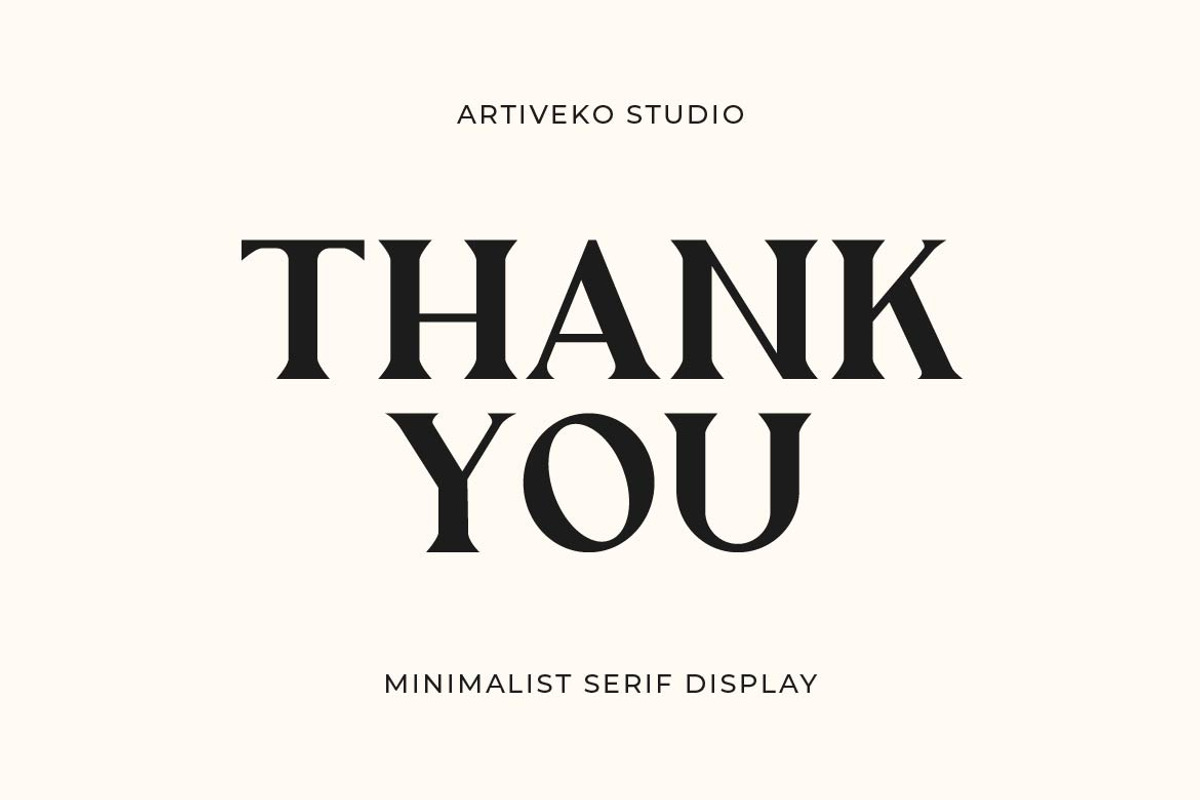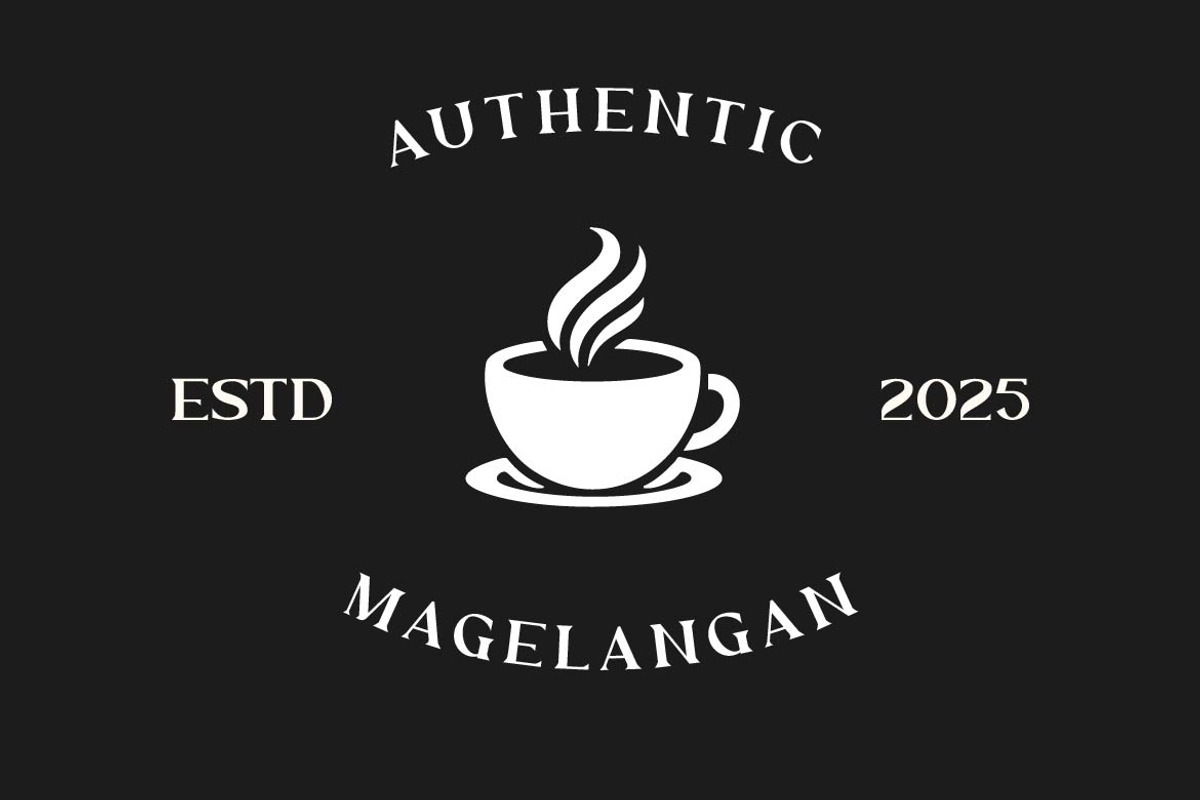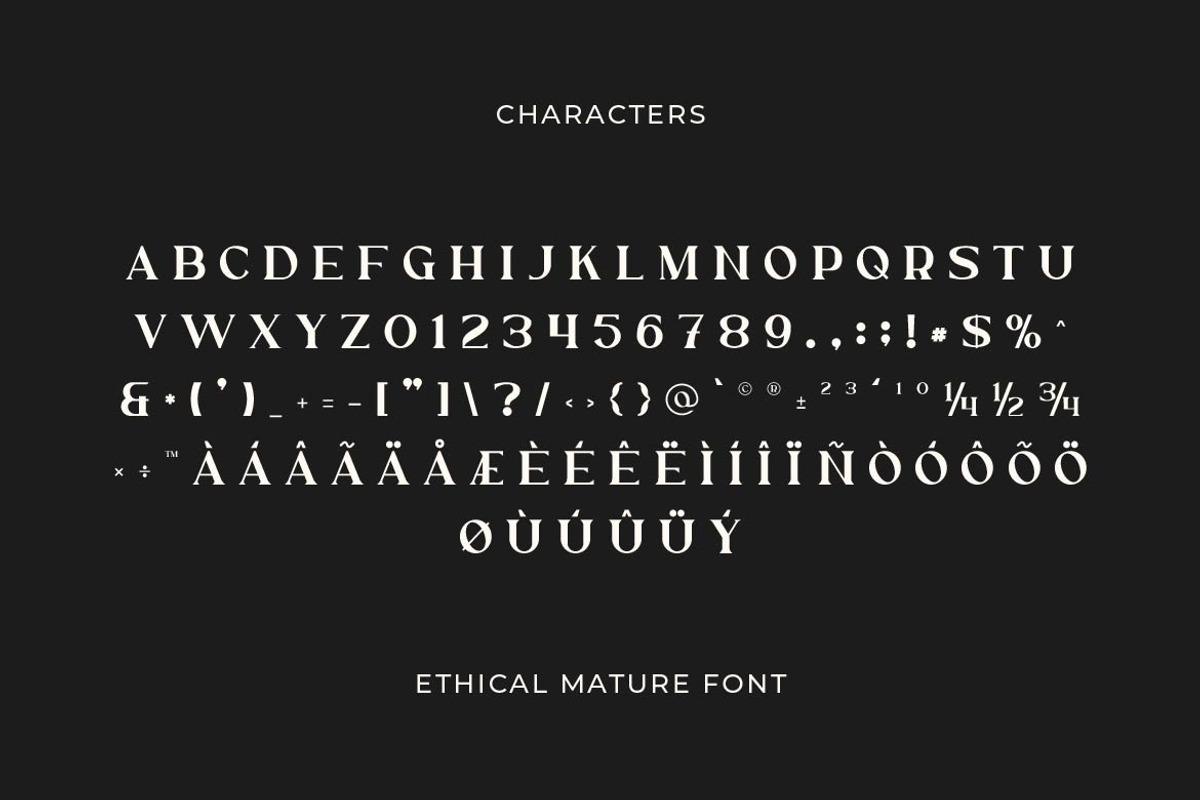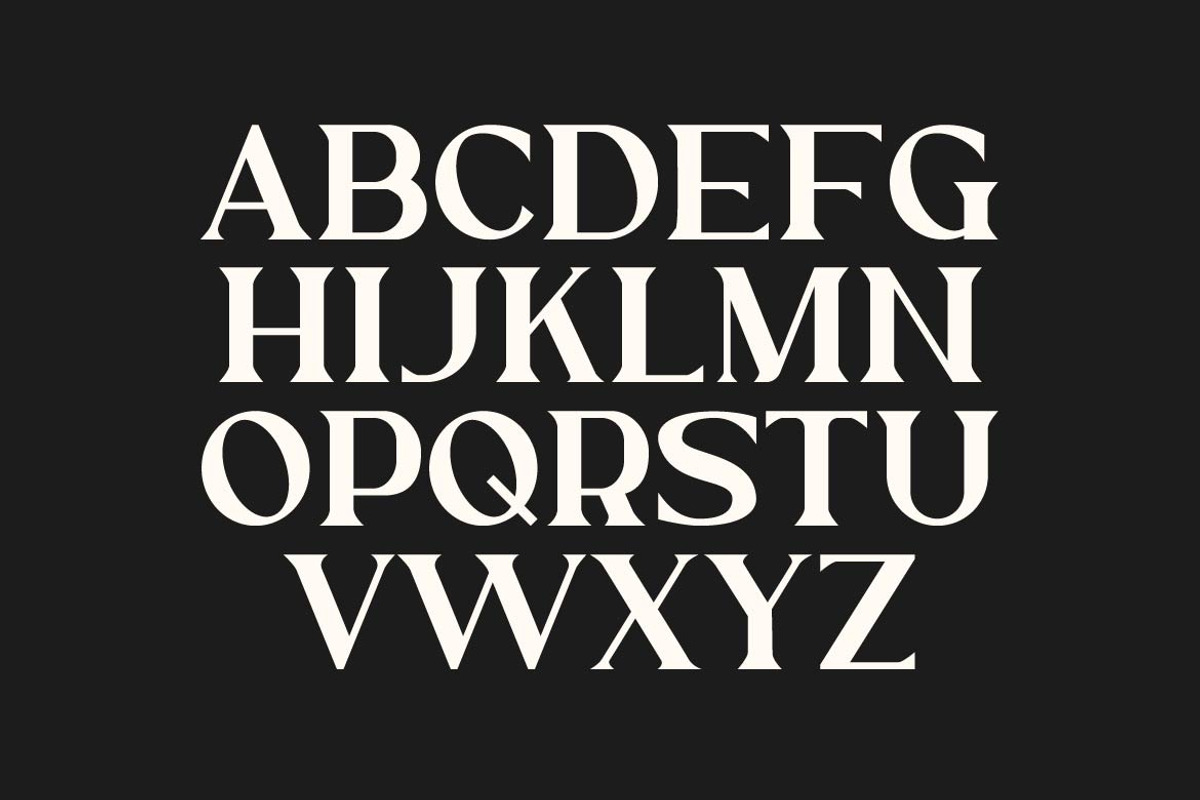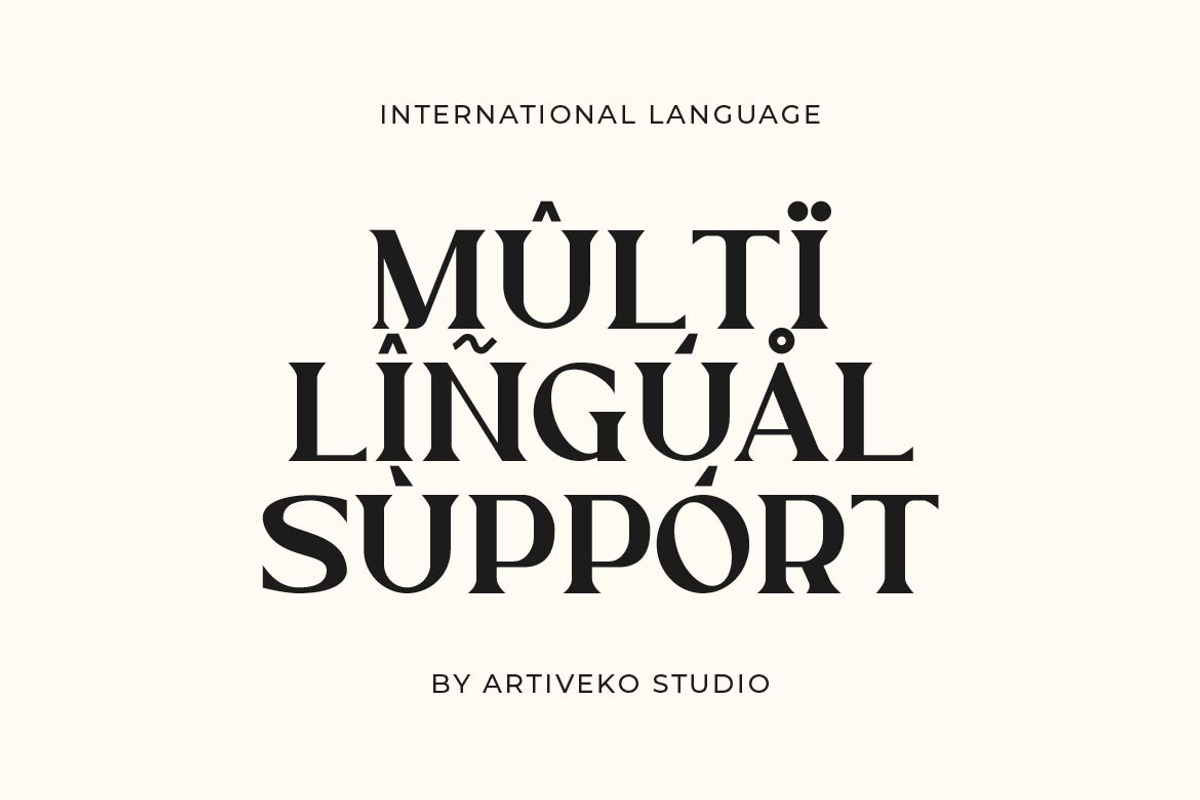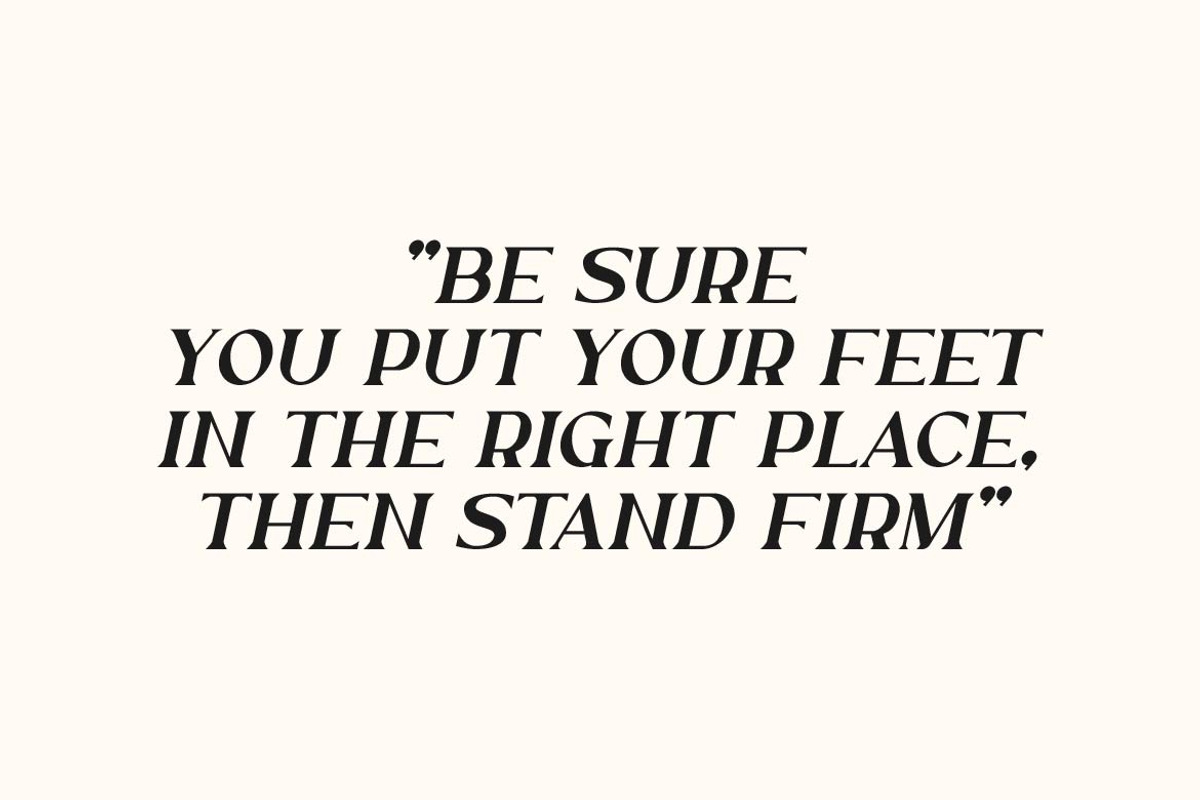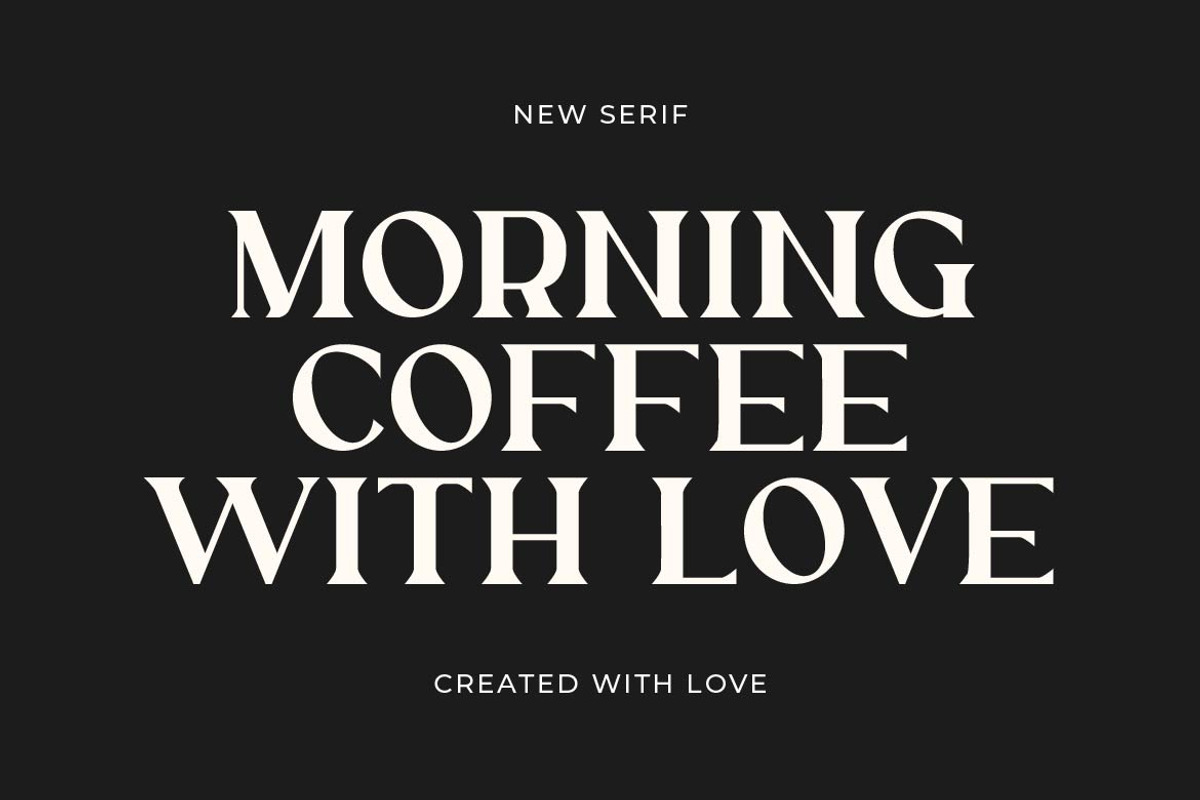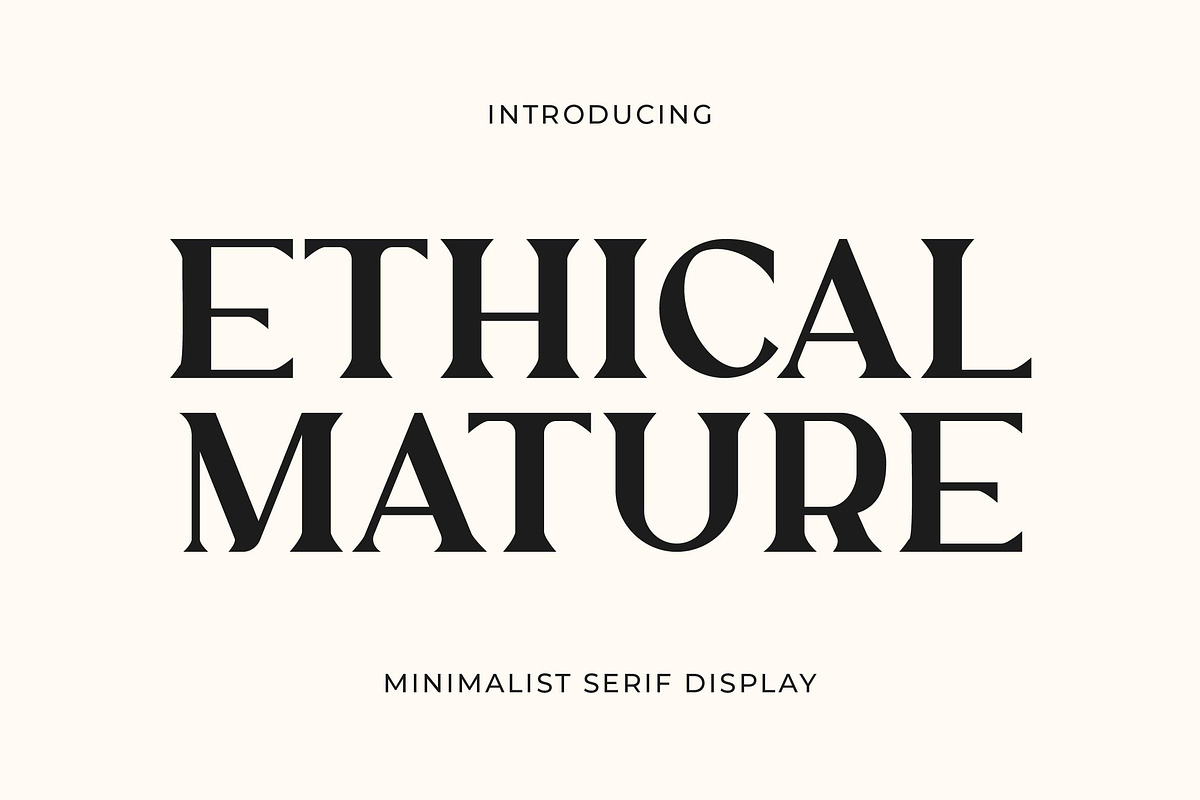
Ethical Mature Display Serif
Ethical Mature is a premium luxury serif typeface crafted for those who value elegance, sophistication, and timeless design. With its refined curves and high-contrast strokes, this font evokes a sense of confidence and authority while remaining effortlessly graceful. Whether you're designing for luxury fashion, editorial layouts, boutique branding, or upscale packaging, Ethical Mature offers a distinguished presence that elevates every project.